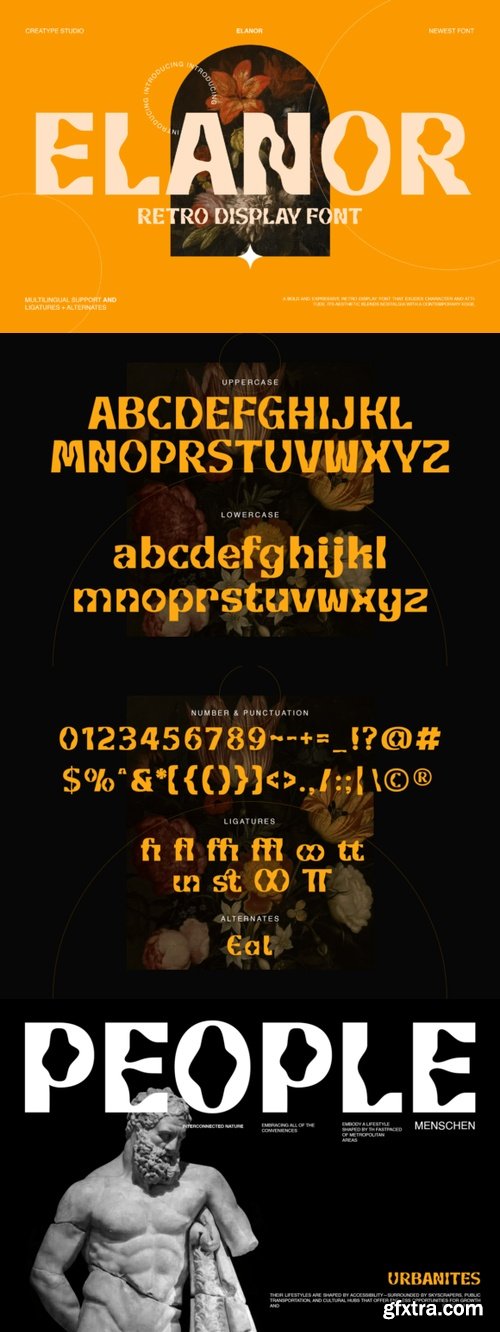
- Step into a world of bold design with Elanor Retro Display, a retro display font that exudes personality, creativity, and a nostalgic charm. Perfect for adding an expressive touch to your designs, Elanor brings a dynamic energy that’s both captivating and versatile.
- From striking headlines to unique branding projects, this font’s aesthetic blends vintage vibes with a contemporary edge, making it ideal for everything from posters to modern packaging. Let Elanor be the standout element in your creative work.